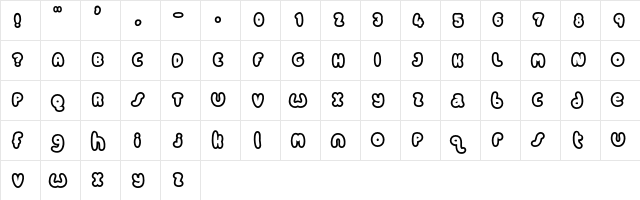
Candy coloured clown Regular
Design Context for Candy coloured clown Typeface
Candy coloured clown is a composed and adaptable typeface that performs quietly and consistently across a wide range of design contexts.